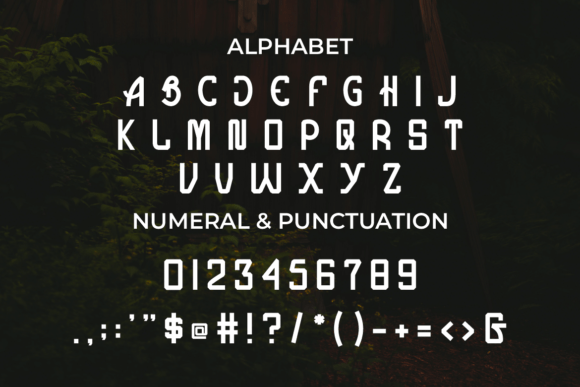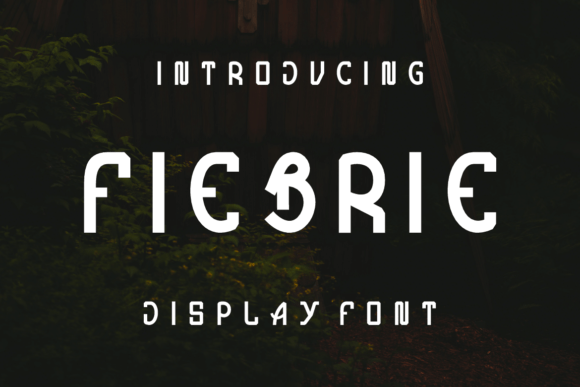
Fiebrie Font: Elevate Your Designs with a Cool and Interesting Display Font
Are you tired of using the same old fonts in your designs? Look no further! Introducing Fiebrie Font, a cool and interesting display font that will take your projects to the next level. With its unique and captivating style, Fiebrie is sure to make a statement and leave a lasting impression on your audience.
The Power of Fiebrie Font
Fiebrie Font is a display font that is designed to make your designs stand out from the crowd. Its distinctive style and flair make it perfect for a wide range of projects, from branding and advertising to packaging and digital media. Whether you’re a designer, craftsperson, or DIY enthusiast, Fiebrie Font is a versatile and exciting addition to your toolkit.
Why Choose Fiebrie Font?
- Unique Style: Fiebrie Font boasts a one-of-a-kind design that will set your projects apart from the rest.
- Highly Versatile: Use Fiebrie Font in a variety of contexts, from headings and titles to logos and branding.
- Scalable: Fiebrie Font is optimized for use at various sizes, ensuring that it looks great whether it’s used in a small caption or a large headline.
Need some inspiration for your Fiebrie Font projects? Here are a few ideas to get you started:
- Branding and Logos: Use Fiebrie Font to create a unique and memorable logo for your business or brand.
- Social Media Graphics: Add Fiebrie Font to your social media graphics, such as Facebook posts and Instagram stories, to make them stand out.
- Packaging Design: Use Fiebrie Font to add a touch of personality to your product packaging.
- Digital Media: Incorporate Fiebrie Font into your digital media, such as video titles and blog posts, to add visual interest.
Here are a few tips and tricks to help you get the most out of Fiebrie Font:
- Experiment with Colors: Try pairing Fiebrie Font with different colors to create a unique and eye-catching effect.
- Play with Size: Experiment with different font sizes to create visual interest and hierarchy.
- Mix and Match: Combine Fiebrie Font with other fonts to create a distinctive and engaging typography.
In conclusion, Fiebrie Font is a cool and interesting display font that is sure to elevate your designs and take them to the next level. With its unique style, versatility, and ease of use, Fiebrie Font is a must-have for designers and crafters. So why wait? Download Fiebrie Font today and start creating amazing projects that will leave a lasting impression on your audience!